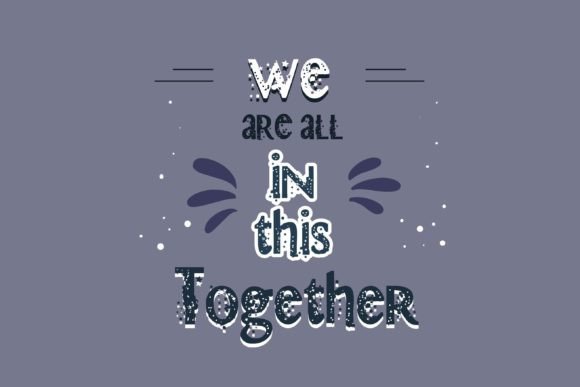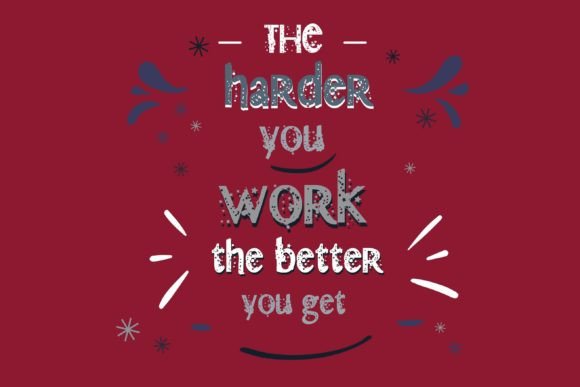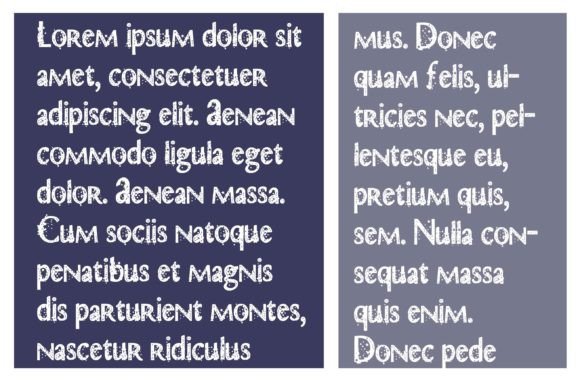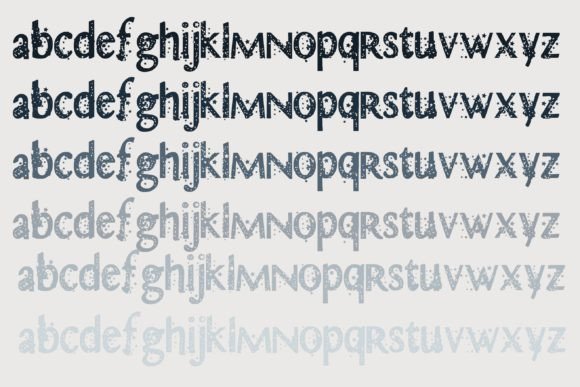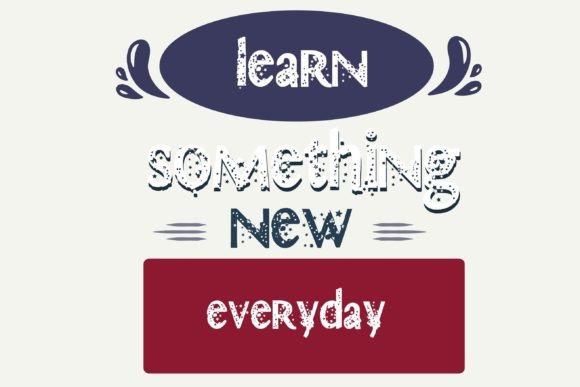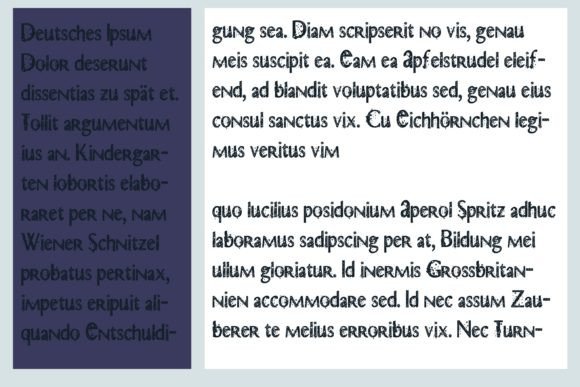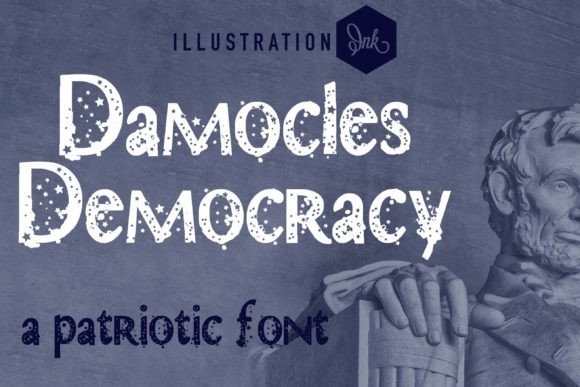
Introducing Damocles Democracy Font: The Perfect Addition to Your Patriotic Designs
Are you a designer or crafter looking for a unique and meaningful font to add a touch of patriotism to your projects? Look no further than the Damocles Democracy Font. This beautifully crafted font is perfect for any American celebration, including Independence Day, Veterans Day, and more. In this article, we’ll explore the features and benefits of the Damocles Democracy Font and how it can elevate your designs.
A Font that Shines like the Stars and Stripes
Each letter in the Damocles Democracy Font is meticulously designed to evoke a sense of unity and freedom. The font features delicate stars incorporated into the design, giving it a unique and patriotic flair. Whether you’re creating invitations, banners, or posters, this font will add a touch of Americana to your projects, making them stand out from the crowd.
Perfect for Patriotic Celebrations
The Damocles Democracy Font is specifically designed for American celebrations, making it the perfect addition to your Independence Day, Veterans Day, or Memorial Day designs. The font’s patriotic theme will help you create cohesive and meaningful projects that resonate with your audience. From formal invitations to festive banners, this font will help you create stunning designs that showcase your creativity and patriotism.
Key Features of Damocles Democracy Font
- Unique Design: Each letter is beautifully crafted with delicate stars incorporated to evoke a sense of unity and freedom.
- Patriotic Theme: Perfect for American celebrations, including Independence Day, Veterans Day, and Memorial Day.
- Versatile: Suitable for various design projects, including invitations, banners, posters, and more.
How to Use Damocles Democracy Font in Your Designs
- Invitations: Create patriotic invitations for Independence Day or Veterans Day events.
- Banners: Design eye-catching banners for American celebrations.
- Posters: Create stunning posters for patriotic events or campaigns.
- Social Media Graphics: Add a touch of patriotism to your social media graphics and posts.
Tips and Tricks for Getting the Most Out of Damocles Democracy Font
To get the most out of the Damocles Democracy Font, here are some tips and tricks:
- Experiment with Colors: Try pairing the font with patriotic colors like red, white, and blue to create a cohesive look.
- Play with Sizes: Experiment with different font sizes to create visual interest and hierarchy in your designs.
- Add Graphics: Combine the font with patriotic graphics, such as stars or flags, to create a unique and eye-catching design.
The Damocles Democracy Font is a unique and meaningful addition to any design project. With its delicate stars and patriotic theme, this font is perfect for American celebrations and events. Whether you’re a designer or crafter, this font will help you create stunning designs that showcase your creativity and patriotism. So why wait? Download the Damocles Democracy Font today and start creating your own patriotic masterpieces!